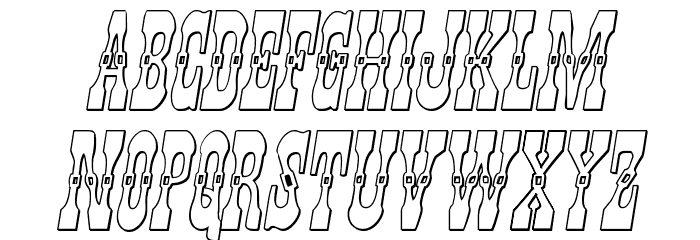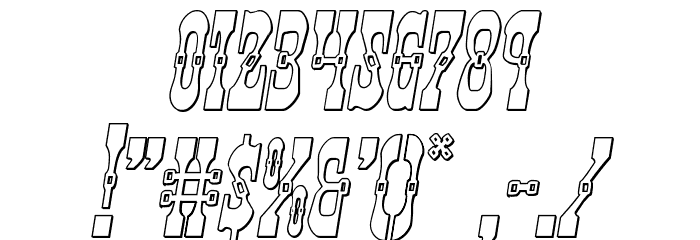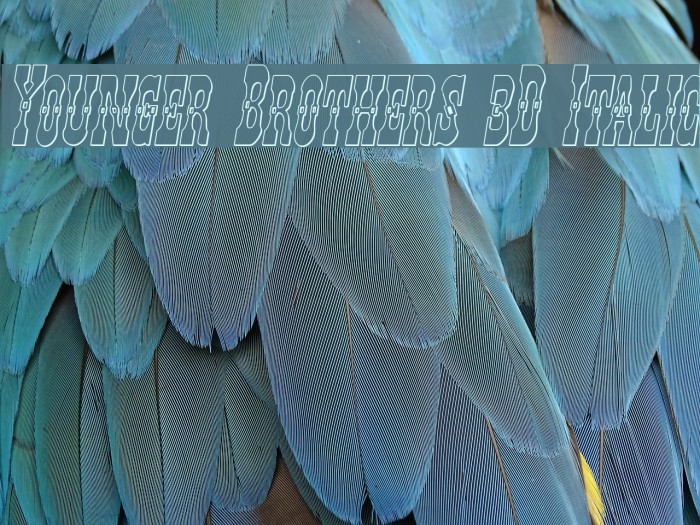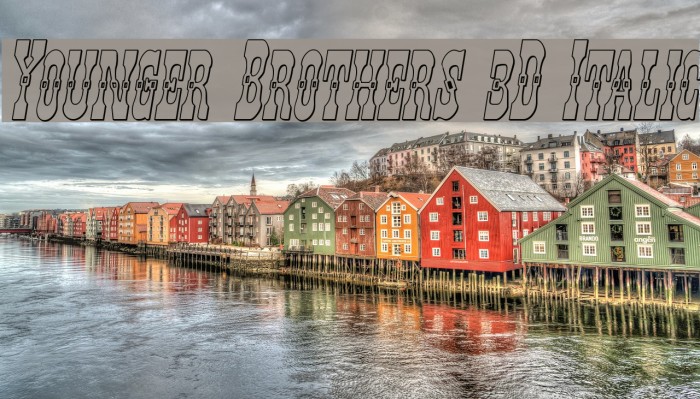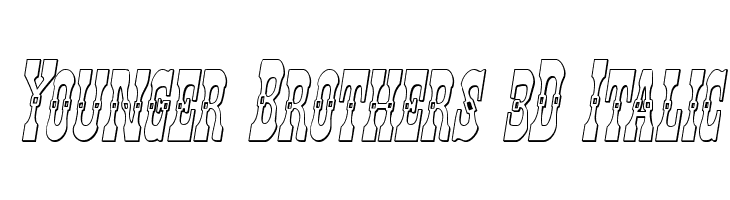
Younger Brothers 3D Italic Font
This font features a bold, three-dimensional design with an italic slant, creating a dynamic and eye-catching appearance. The letters are outlined with a thick black border, giving them a strong presence on the page. The 3D effect is achieved through a clever use of shading and perspective, making the characters appear as if they are popping off the surface. This font includes both uppercase and lowercase letters, numbers, and a variety of special characters. The playful and modern style makes it suitable for projects that require a bold statement.
A bold, 3D italic font with a strong outline and modern style.
- Proposed Projects: Ideal for posters, headlines, logos, and any design needing a bold, standout font.